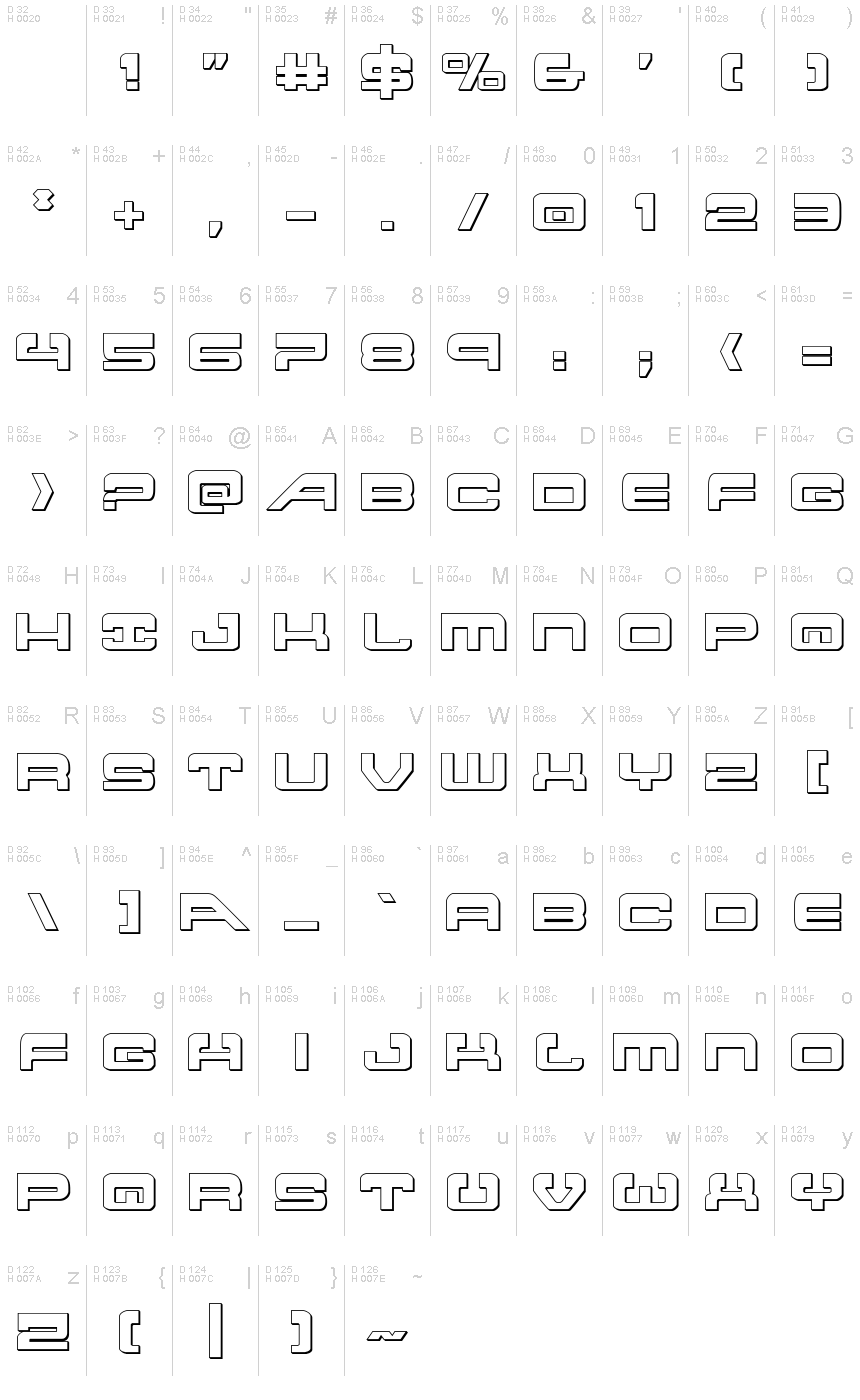
Atlantia 3D
Atlantia 3D captivates with its bold and striking presence, offering a futuristic aesthetic that feels both modern and immersive. The expanded form of its letters creates an illusion of depth, inviting viewers into a world of innovation and creativity. Each character boasts prominent angles and contours that enhance its visual impact, ensuring it stands out in any context.
This display font is ideal for dynamic branding, eye-catching headlines, or engaging promotional materials. Its unique style can elevate products in technology, gaming, or sci-fi genres, where a sense of adventure and forward-thinking is essential. Atlantia 3D isn’t just a typeface; it's a statement piece perfect for conveying excitement while maintaining clarity in communication.